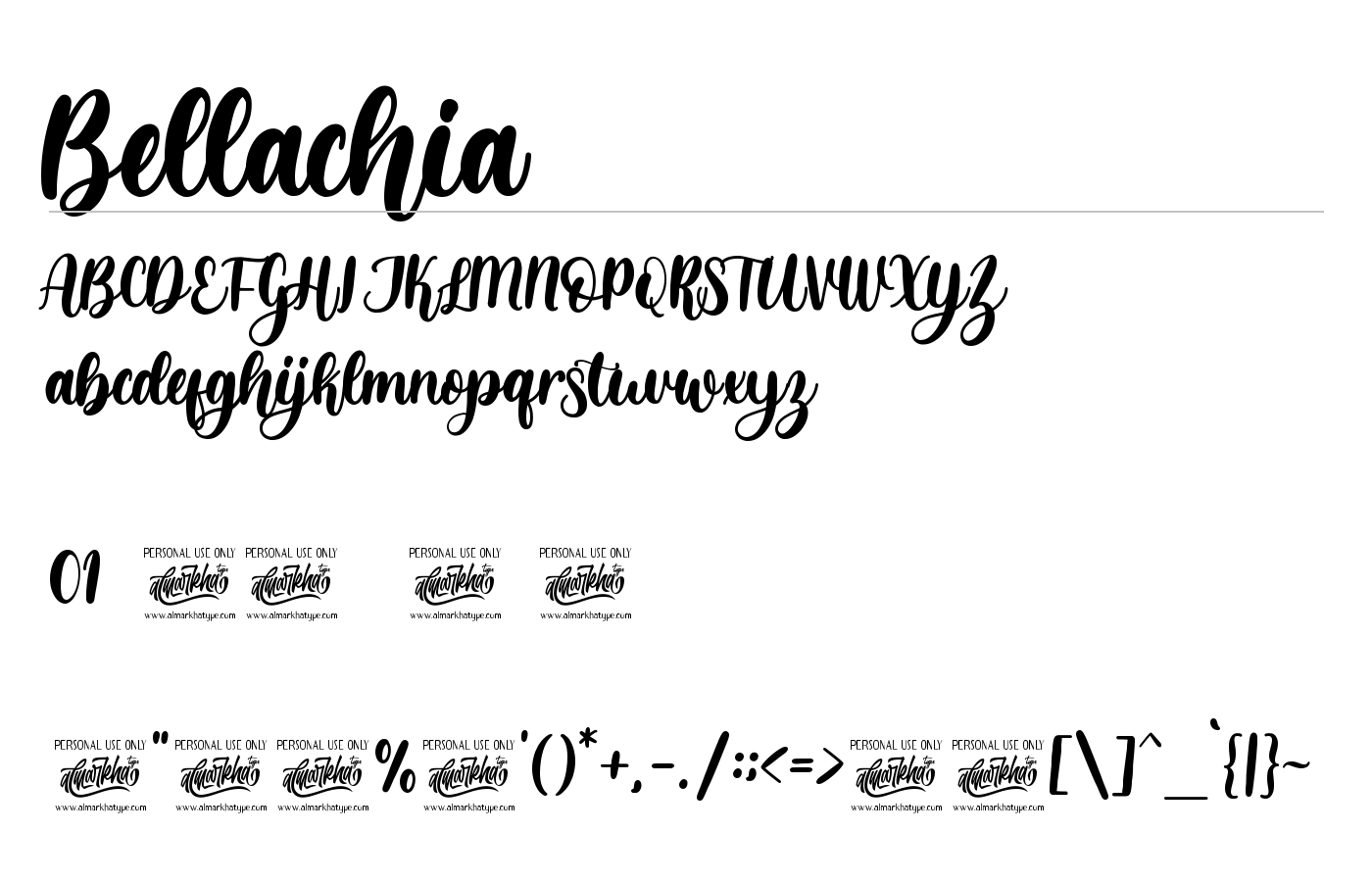
Bellachia is a lively and elegant script font featuring smooth, flowing strokes with a medium weight and a handwritten feel. Its tall, rounded letterforms and playful curves create a friendly yet sophisticated personality, making it ideal for invitations, branding, and creative projects that need a personal, stylish touch. This font works well in headlines and logos where a warm, approachable aesthetic is desired.
Bellachia Font
About Bellachia Font
| Font family | Bellachia Font |
| Designer | Almarkhatype Studio - Abdul Malik - Ghazi |